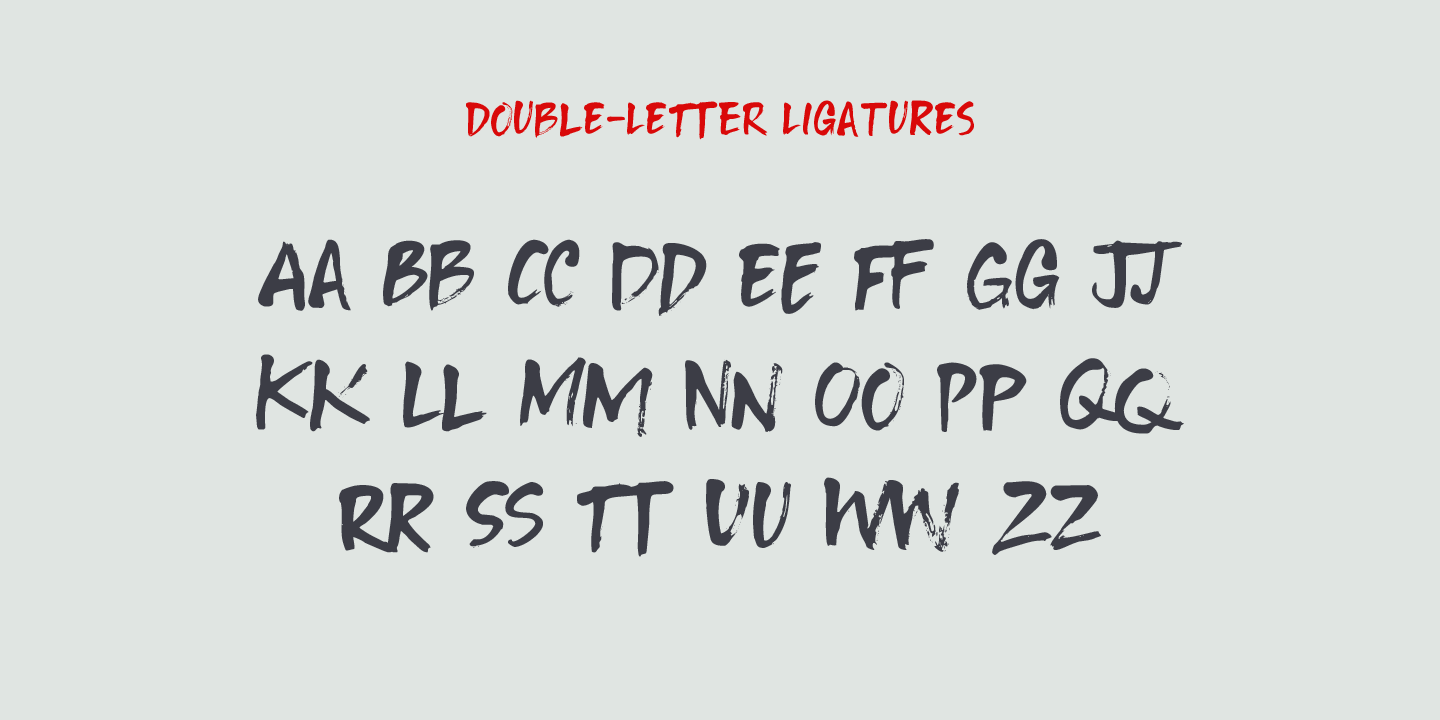
Tenterhooks Font is perfect for suspense thriller book covers, mystery novel branding, tension-filled movie posters, psychological drama graphics, haunting horror designs, anxious anticipation campaigns, edge-of-your-seat entertainment, and gripping designs that require nail-biting suspense and psychological tension.
This font is exciting because it masterfully captures the feeling of being on edge through its taut, nervous letterforms that seem stretched with anticipation and psychological tension. The suspenseful character design embodies the restless energy of uncertainty and dramatic anticipation, making it perfect for projects that need to create an atmosphere of compelling unease and irresistible suspense.
Tenterhooks Font belongs to the thriller display font family, featuring tension-filled styling and suspense elements that enhance its effectiveness for mystery and psychological drama-focused design applications.
Whether you're creating thriller entertainment branding or suspenseful promotional graphics, Tenterhooks Font Free Download delivers maximum psychological impact and gripping tension. This typeface perfectly captures the essence of edge-of-your-seat excitement while maintaining excellent functionality for commercial applications. The font's tense presence works exceptionally well in book covers, movie promotions, and thriller communications, providing strong readability while maintaining its suspenseful character that transforms any design with psychological tension and creates unforgettable nail-biting experiences across all media platforms and thriller entertainment communications.